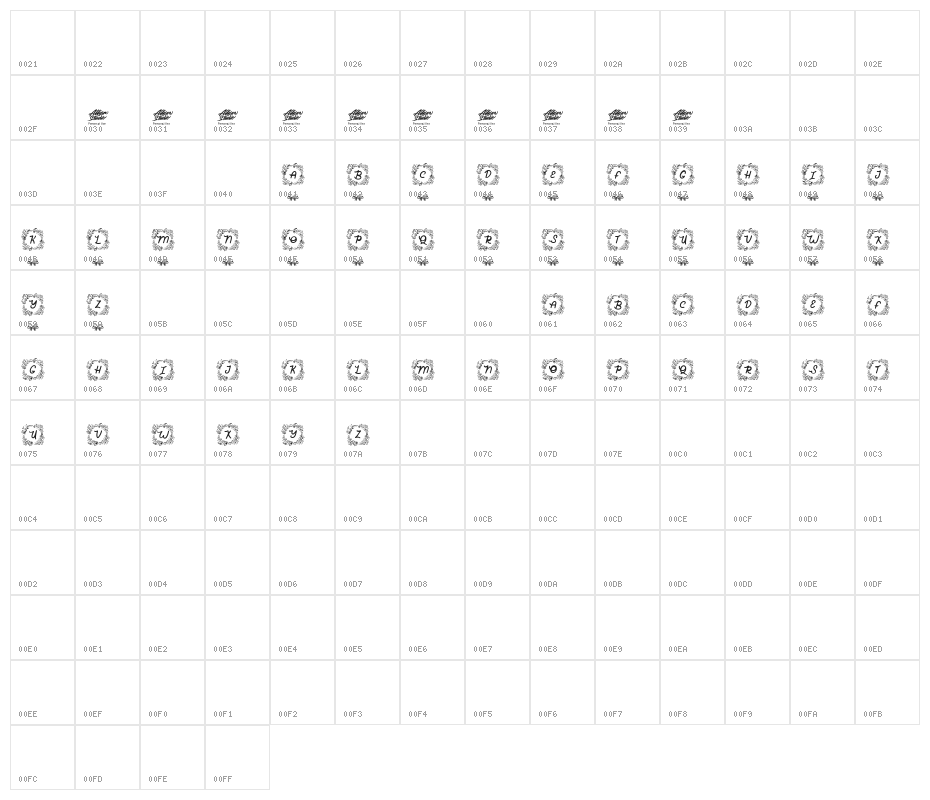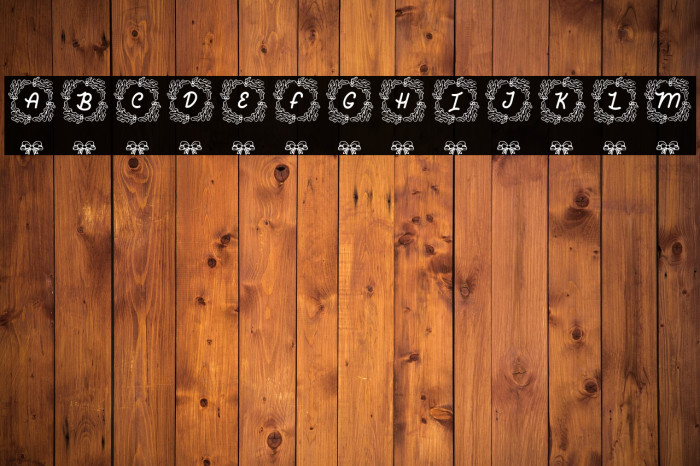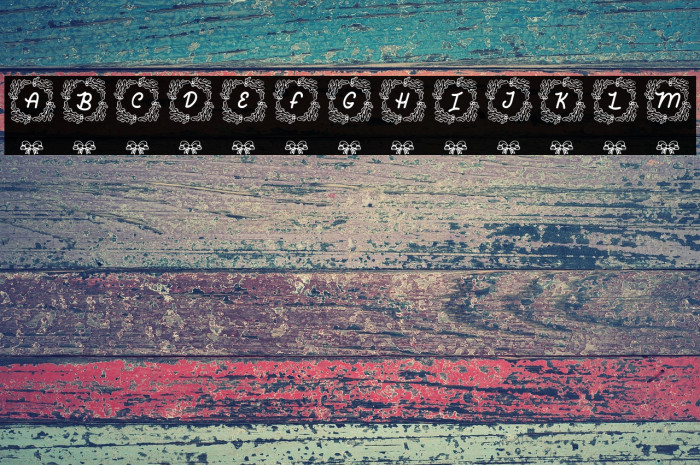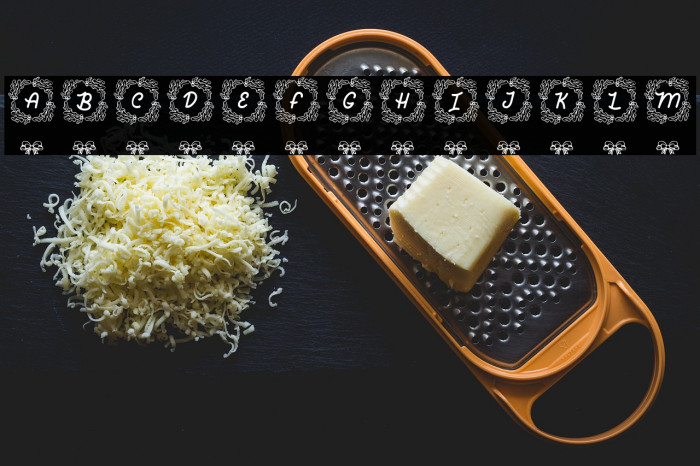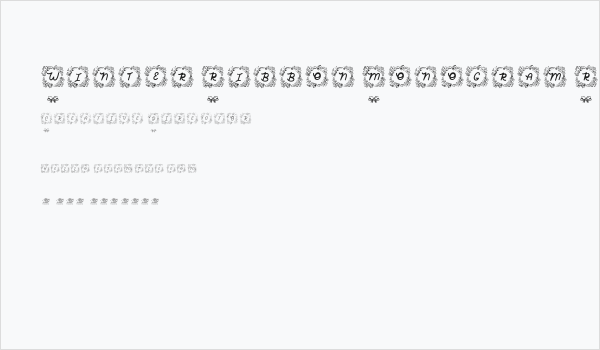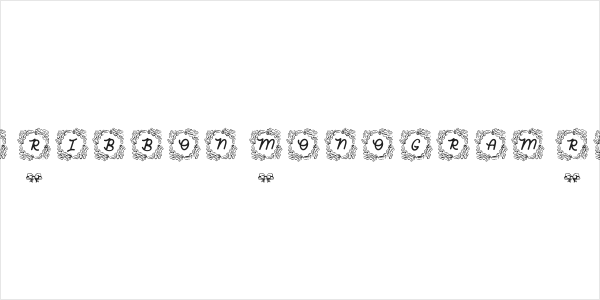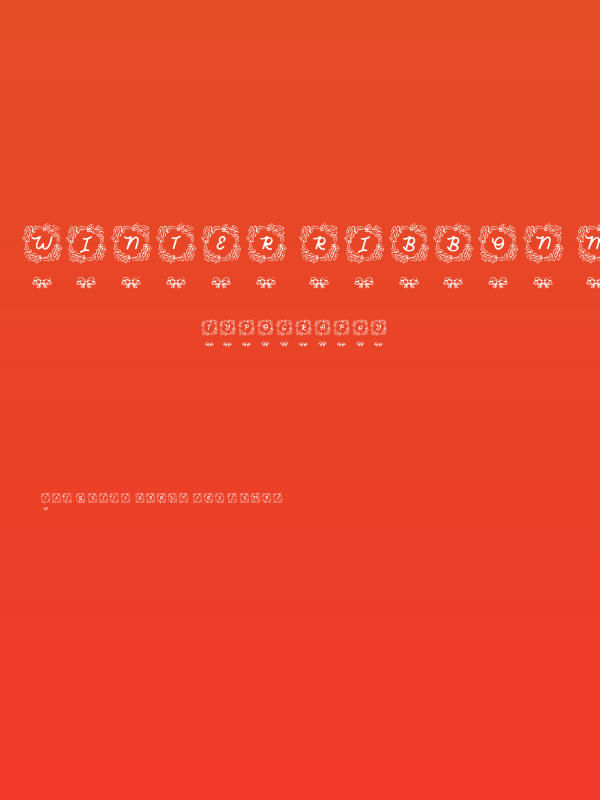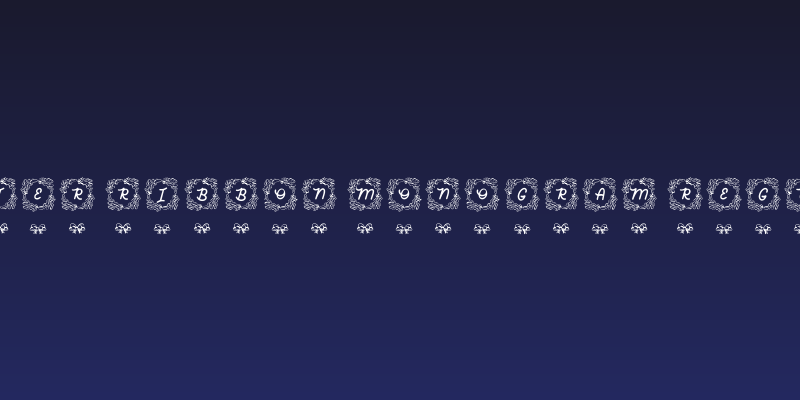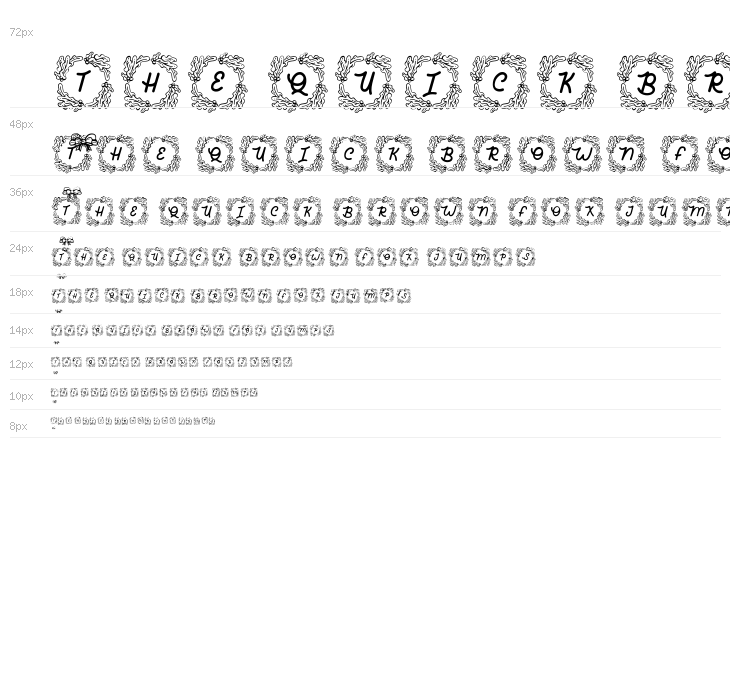
Winter Ribbon Monogram Regular Font
Winter Ribbon Monogram Regular Description
This font features an elegant and decorative style, with each letter encased in a detailed, ornate frame resembling a winter-themed ribbon or wreath. The uppercase letters are prominently displayed, each surrounded by intricate foliage patterns that add a festive and sophisticated touch. The design is highly decorative, making it ideal for special occasions and holiday-themed projects. The font's unique style captures a sense of elegance and tradition, perfect for creating monograms or personalized stationery. Its intricate details and decorative elements make it stand out, offering a classic yet festive appearance.
| Use Case | Logos, Invitations, Monograms |
| Proposed Projects | Ideal for holiday cards, wedding invitations, monogram designs, and festive branding. |